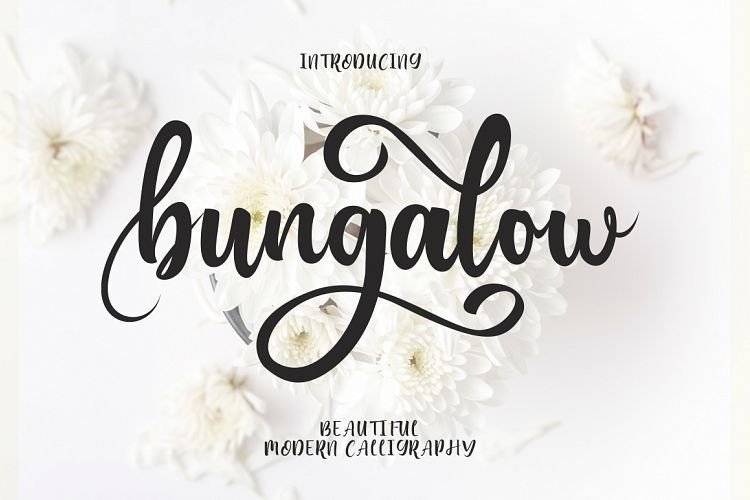
Bungalow Script Font
Dear All. This is new Bold Script Calligraphy handmade style font. Amazing hand lettering look bold script typeface with retro feel, attractive swashes and alternates. Introducing Bungalow Font.
Beautiful Modern Calligraphy Font. Support international language, with beautiful Stylistic Alternate easy use and install, suitable for your every project, such as wedding invitationlogo, business card.